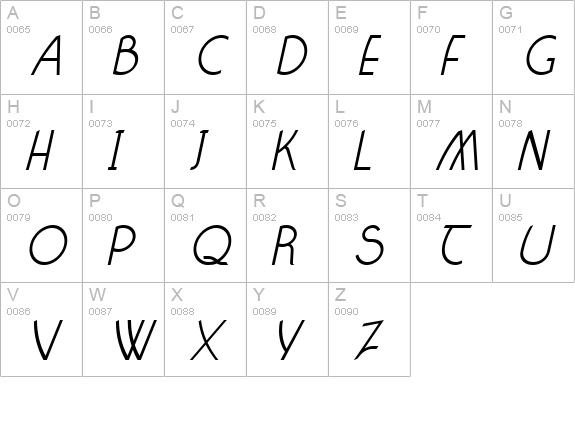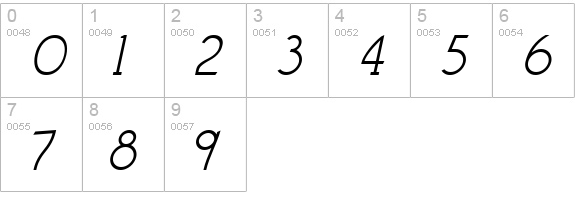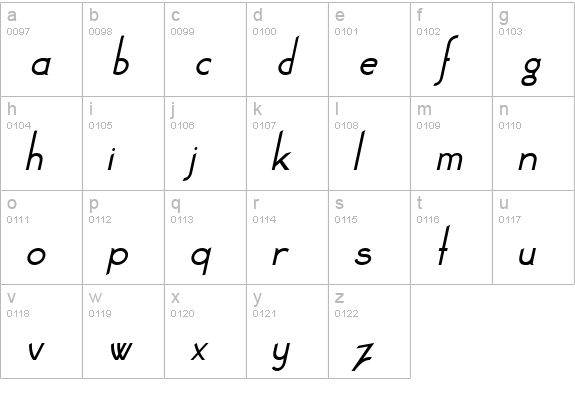
Claritty_Italic Font Details
Claritty_Italic is a charming and elegant font that exudes sophistication and style. Its delicate and graceful letterforms make it perfect for adding a touch of refinement to any design project. The italicized slant of the letters creates a sense of movement and fluidity, making this font ideal for conveying a sense of elegance and grace. What sets Claritty_Italic apart is not only its beauty but also its accessibility - it is available for free download at FontsMarket.com. Designers, creatives, and anyone looking to elevate their projects can easily access this stunning font to enhance their work. Whether you're designing invitations, branding materials, or advertising campaigns, Claritty_Italic is sure to make a lasting impression with its timeless appeal and effortless charm. Download it today and add a touch of sophistication to your designs.